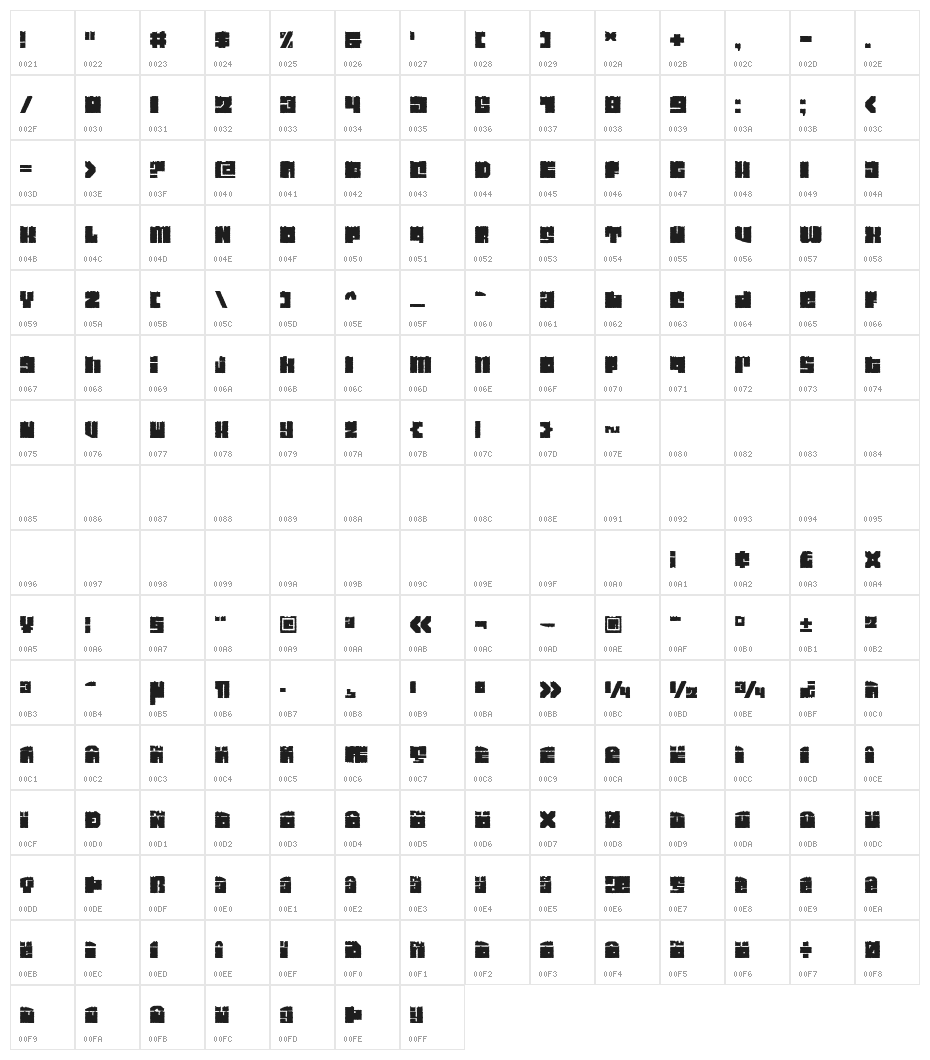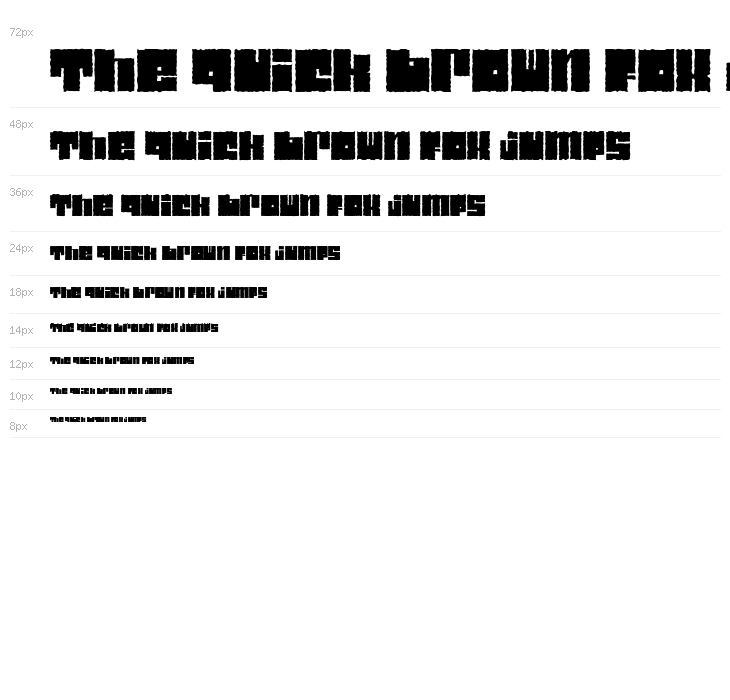
Characteristic Font
Characteristic Description
This font features a bold and rugged design with a distressed texture that gives it a gritty, urban feel. The characters are blocky and substantial, with a consistent width that provides a strong visual impact. The uppercase and lowercase letters maintain a uniform height, contributing to a cohesive appearance. The numbers and special characters follow the same bold style, ensuring a harmonious look across all text elements. The font's rough edges and uneven lines add a sense of dynamism and energy, making it suitable for projects that require a bold statement.
| Overall Style | Urban, Gritty, Bold |
| Proposed Projects | Ideal for posters, album covers, streetwear branding, and event flyers. |